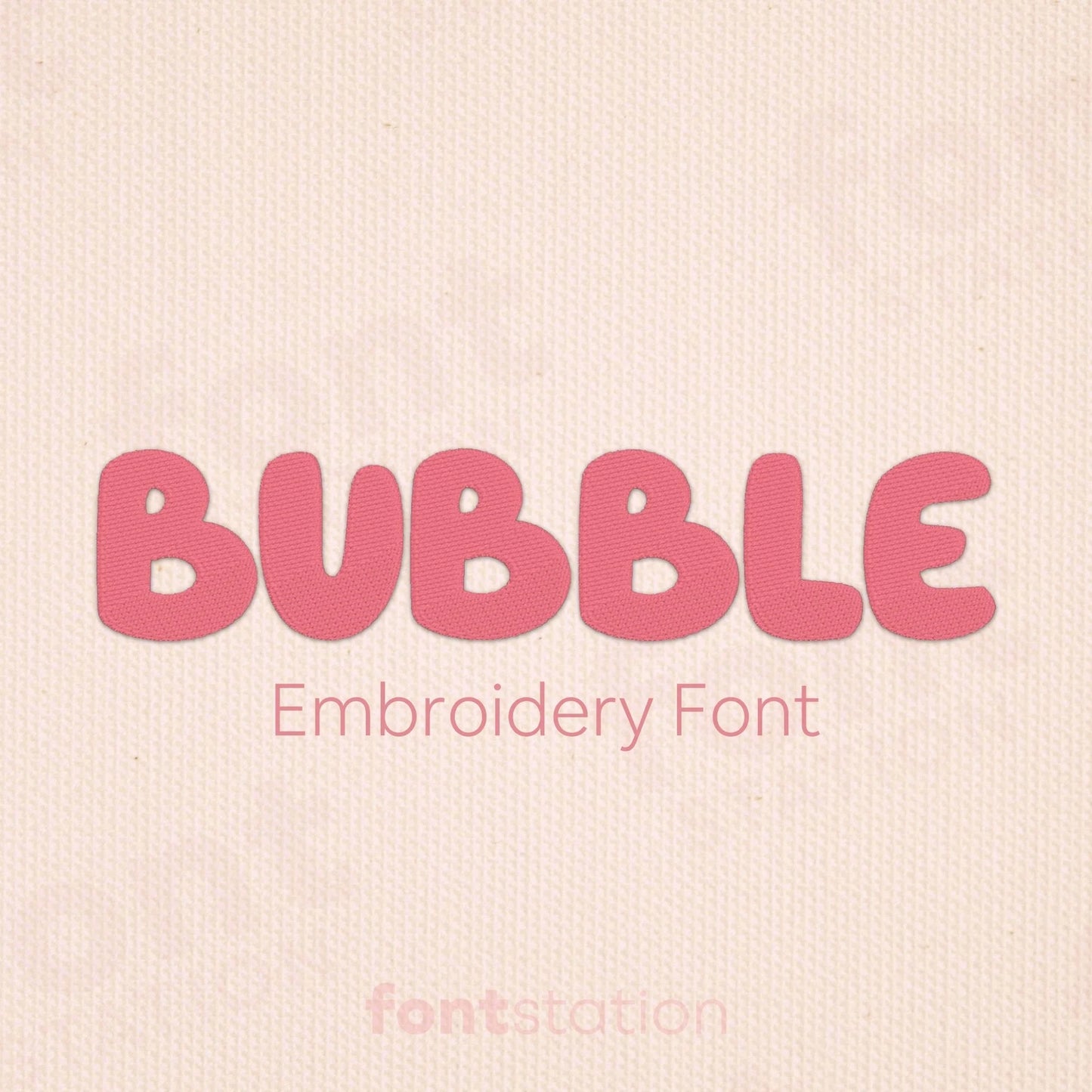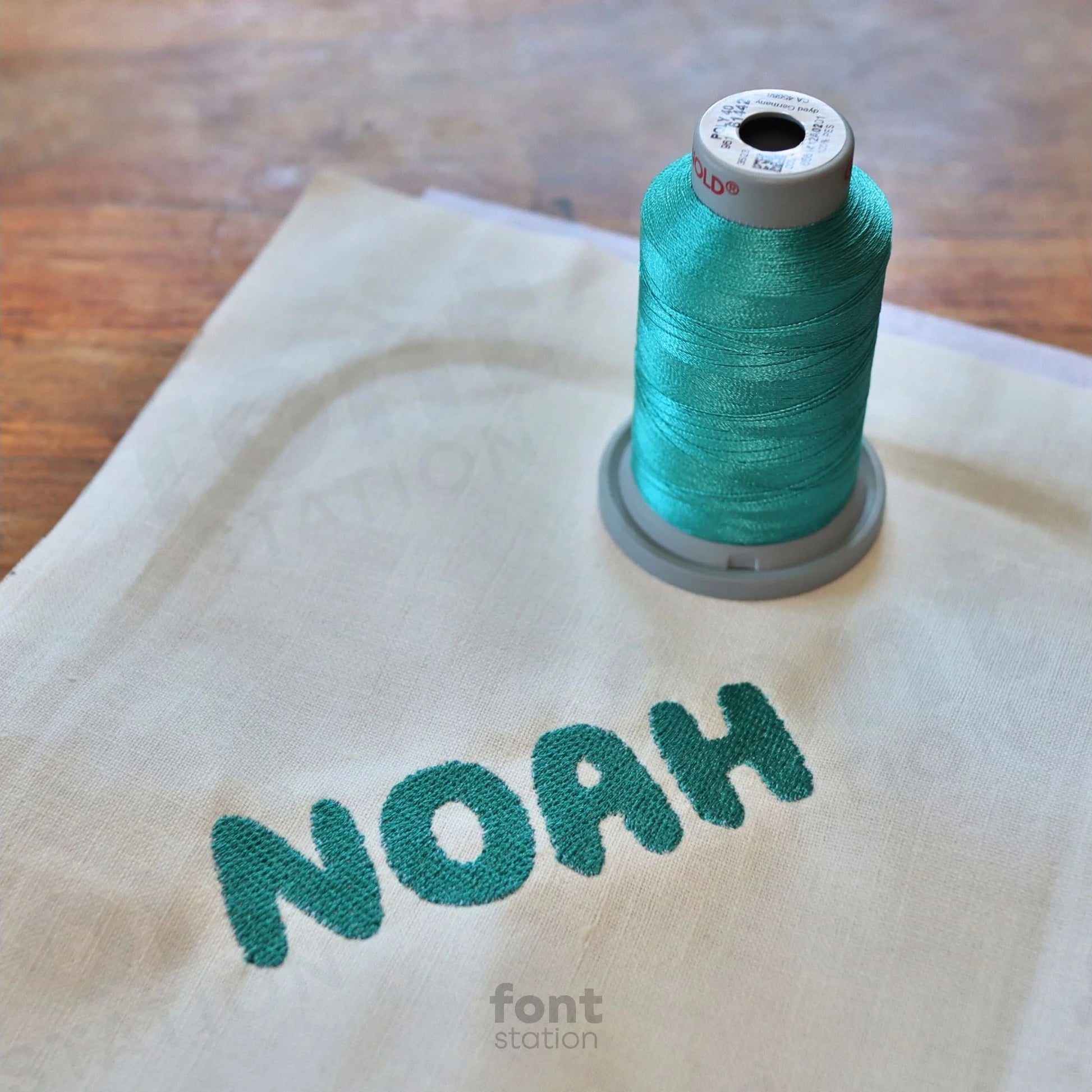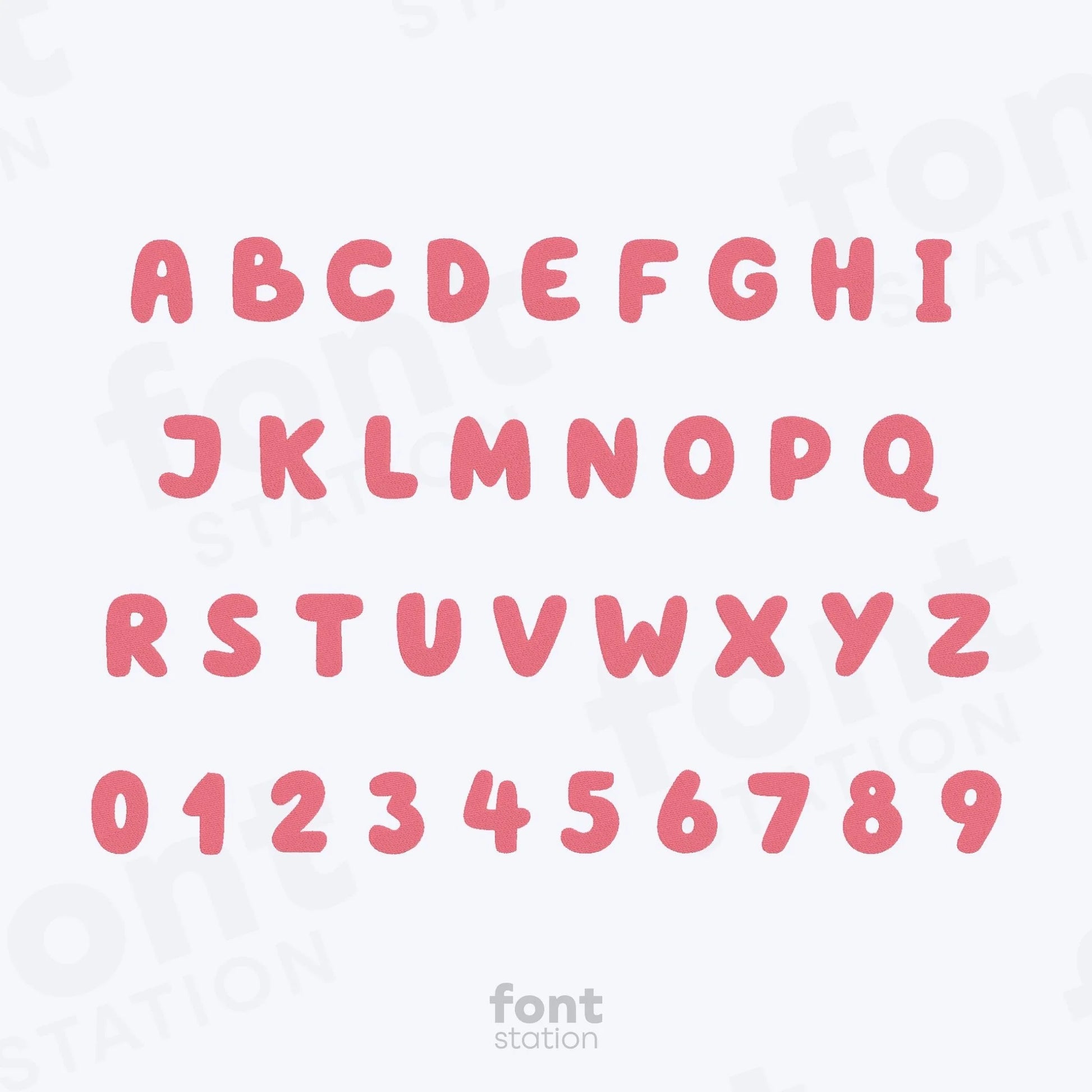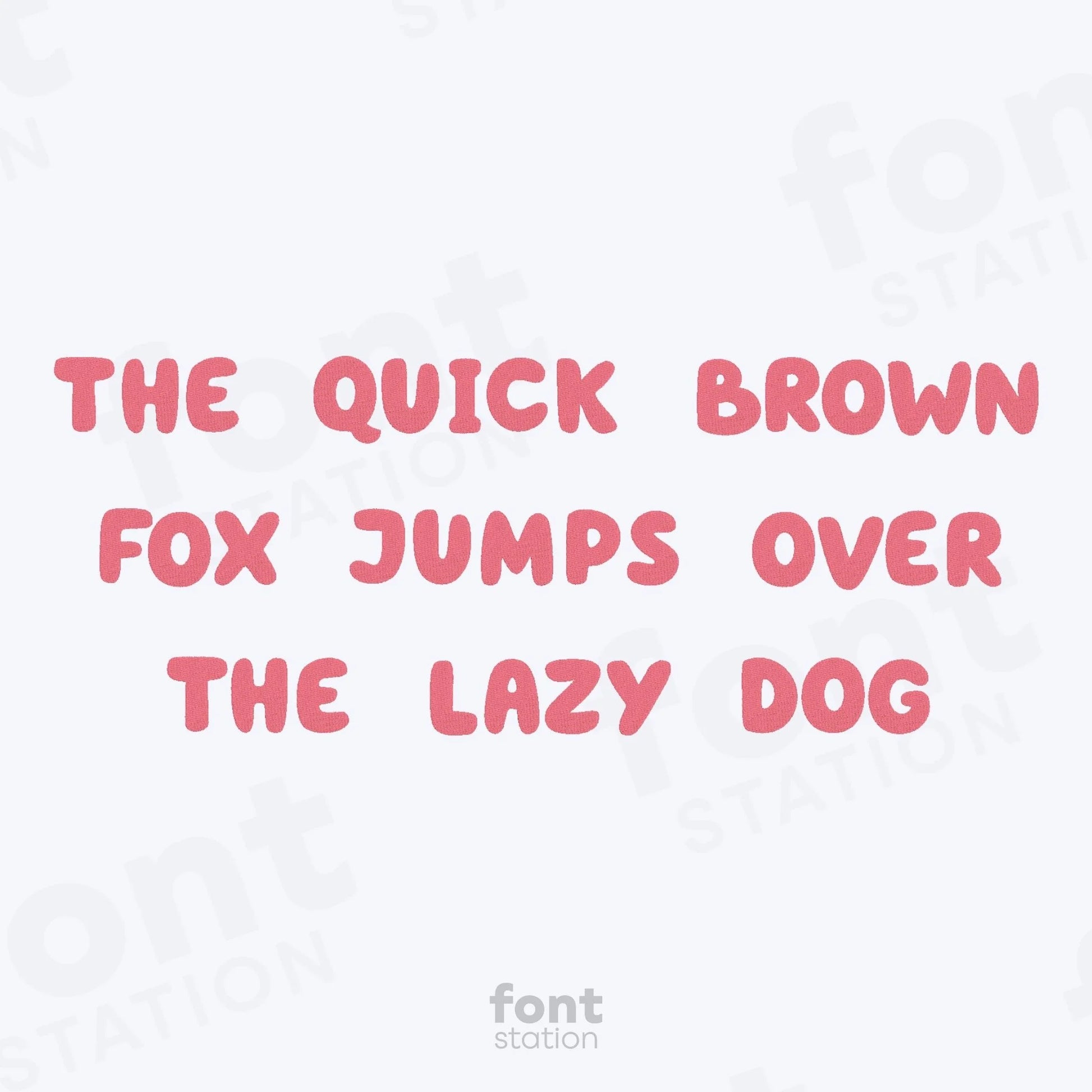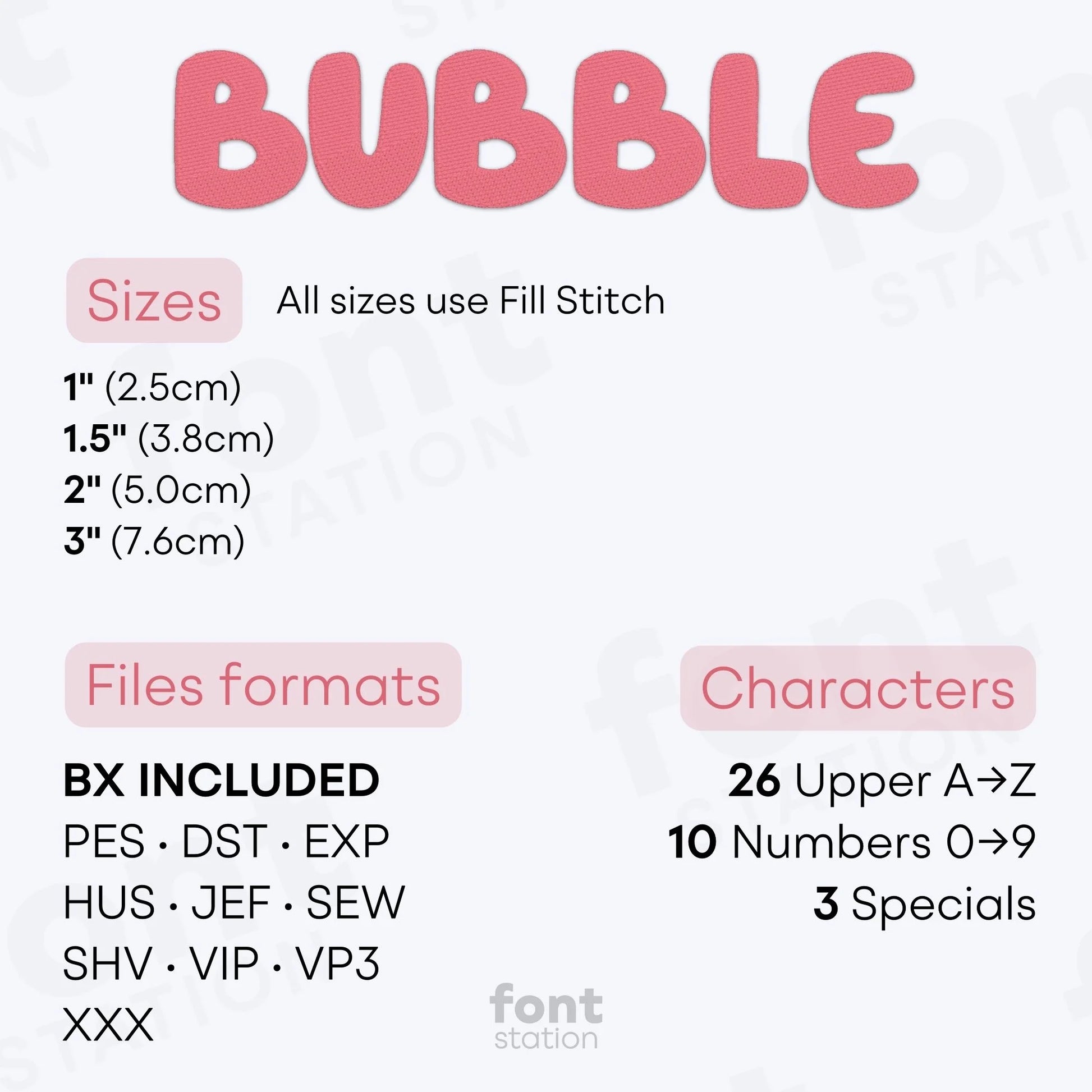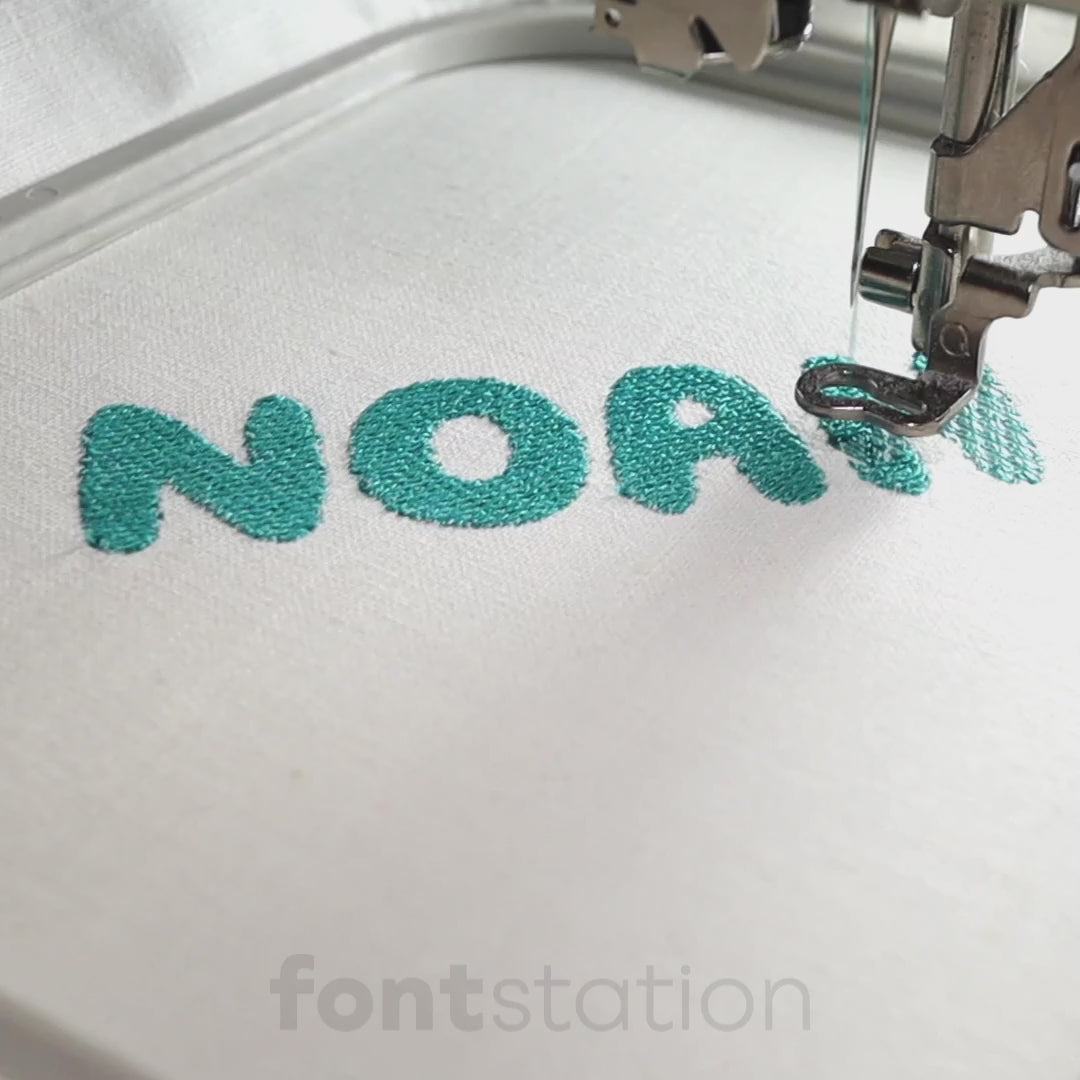
Bubble Embroidery Font
Introducing our Bubble embroidery font, a cute, cartoon-style alphabet perfect for fun kids’ designs. These soft, rounded letters stitch beautifully on any embroidery machine, making them a playful choice for your next cheerful project.
About the Bubble Embroidery Font
Characters: 26 uppercase, 10 numbers, and symbols & ! ?
Our Bubble embroidery font adds playful, cartoon-style charm to your embroidery designs.
The Bubble embroidery font features a cute, rounded alphabet with soft, bold letters that bring a fun, youthful look to your projects. Perfect for kids’ names, baby gifts, birthday decor, or playful apparel, this embroidery font stitches smoothly on any embroidery machine. Available in BX, PES, DST, JEF, EXP, VP3, and HUS formats, it’s an ideal choice for adding bubbly personality to all your creative designs.